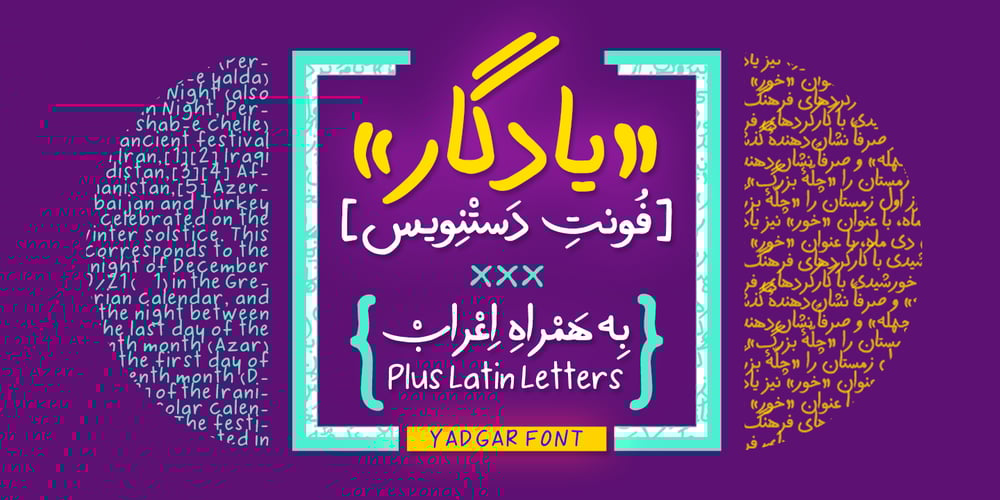
Yadgar
Yadgar font
Yadgar Font Family was designed by Shahab Siavash and published by Si47ash Fonts. Yadgar contains 1 styles and family package options. After Yaddasht handwriting fonts, which provided a child-like, fantasy and simple Persian/Arabic handwritten style, now it is the time for the big brother! Yadgar [means Monument] also supports Persian, Arabic and basic Latin. This font brings a full diacritics set with itself. A young smooth handwriting typeface.Shahab Siavash, the designer has done more than 30 fonts and got featured on Behance, Microsoft, McGill University research website, Hackernoon, Fontself, FontsInUse,… Astaneh, Hezareh, Yaddasht,… text, headline, handwrting fonts, already got professional typographers, lay-out and book designers’ attention as well as some of the most recognizable publications in Arabic/Persian communities.